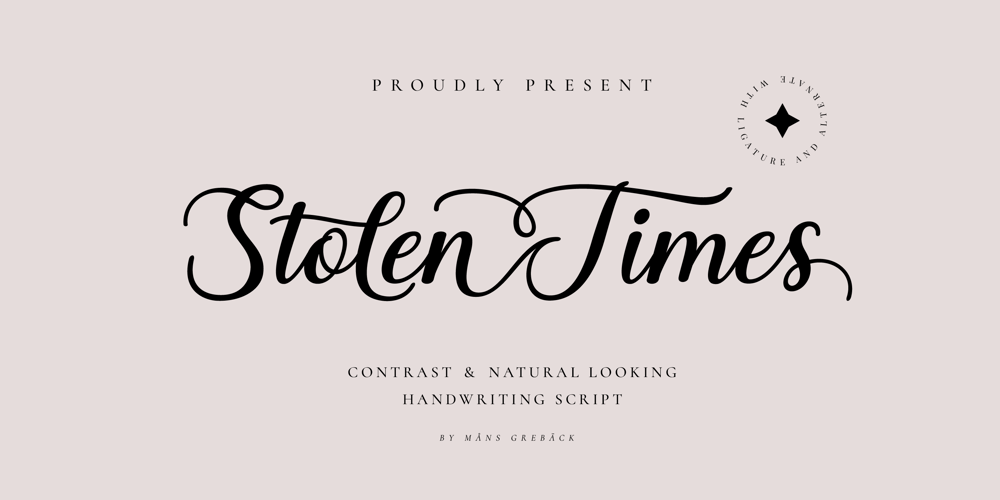
Stolen Times Font Family was designed by Måns Grebäck and published by Mans Greback. Stolen Times contains 4 styles and family package options. Stolen Times, designed by Mans Greback, is a cute and quirky handwriting font that exudes a light-hearted and naive charm. With its hand-crafted appearance and calligraphic touch, this font brings a sense of warmth and personal connection to your design projects. Perfect for craft, homemade items, or simply adding a playful touch to your work, Stolen Times is a delightful and unique typeface.